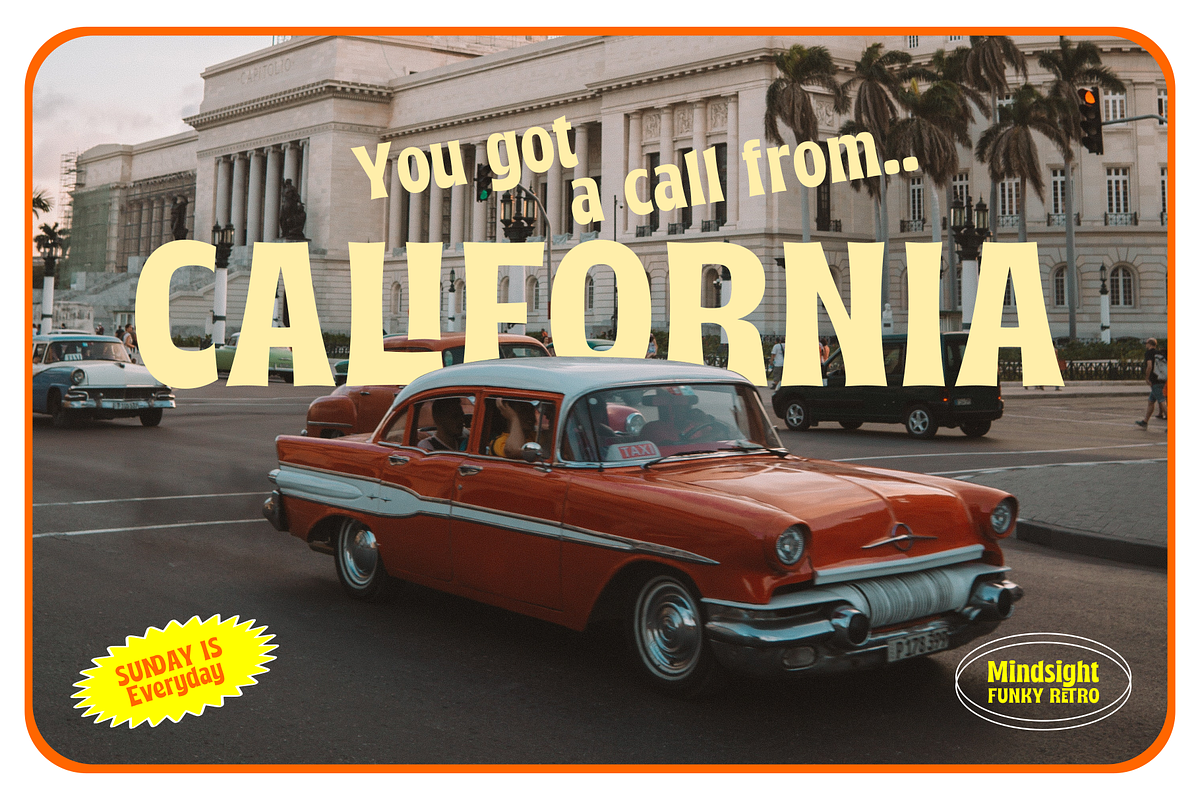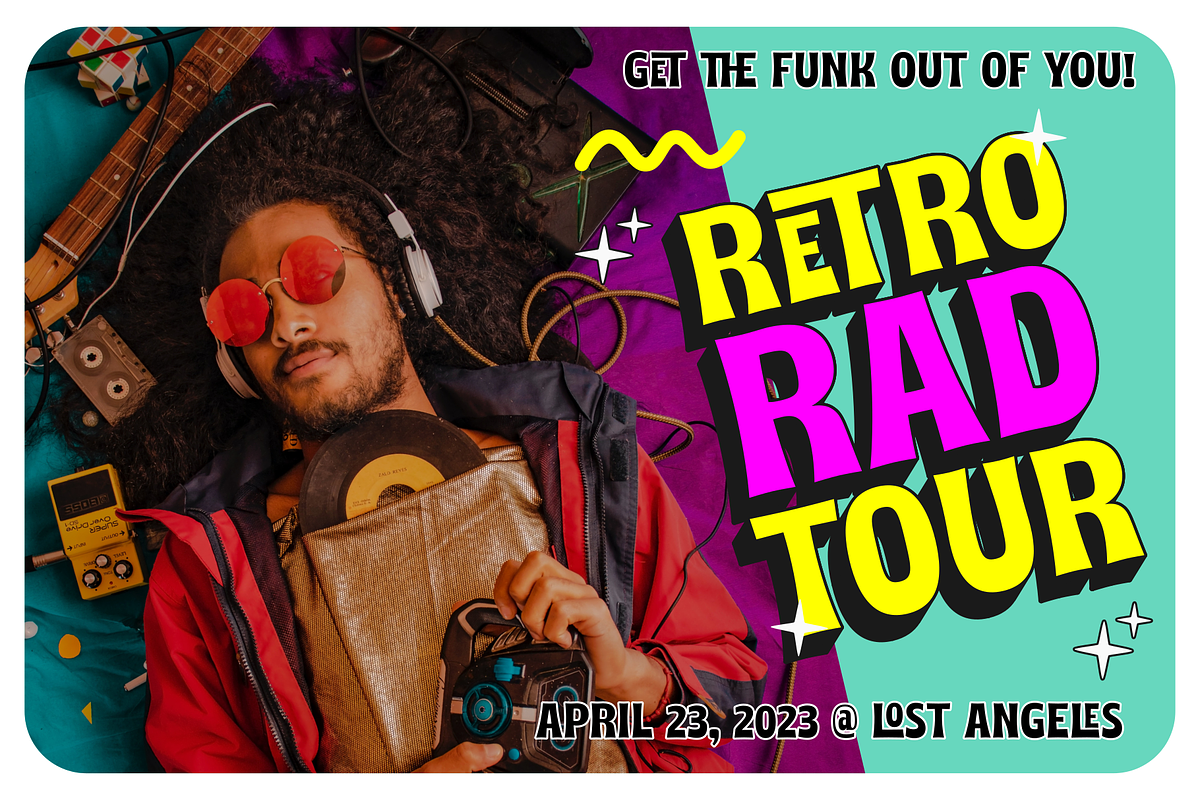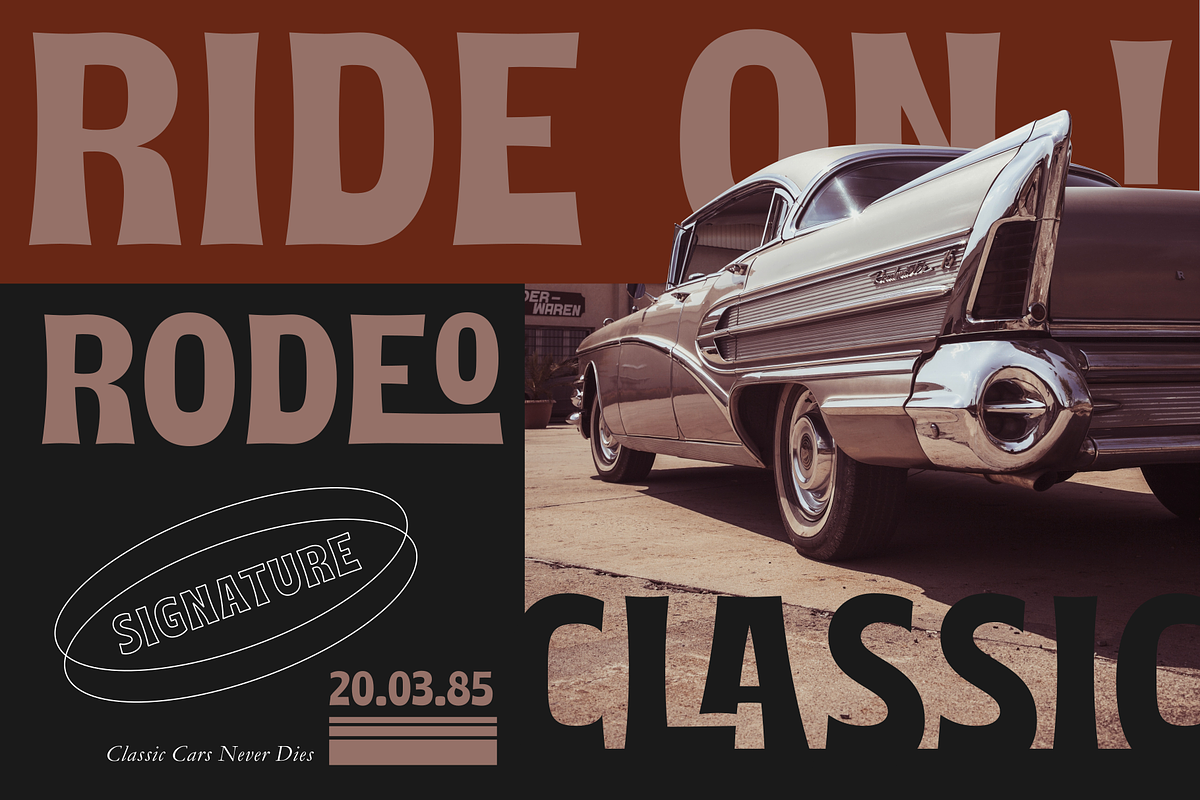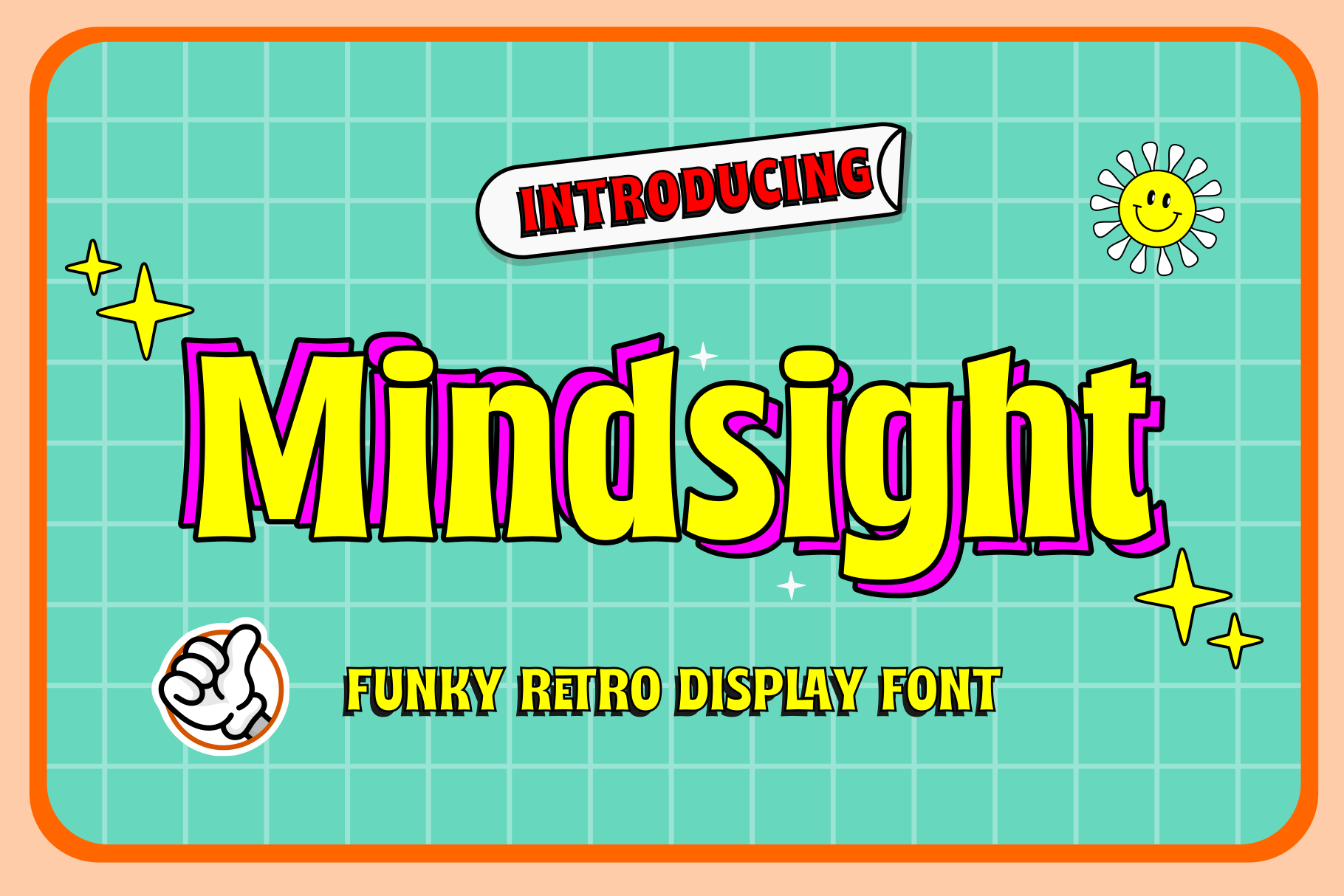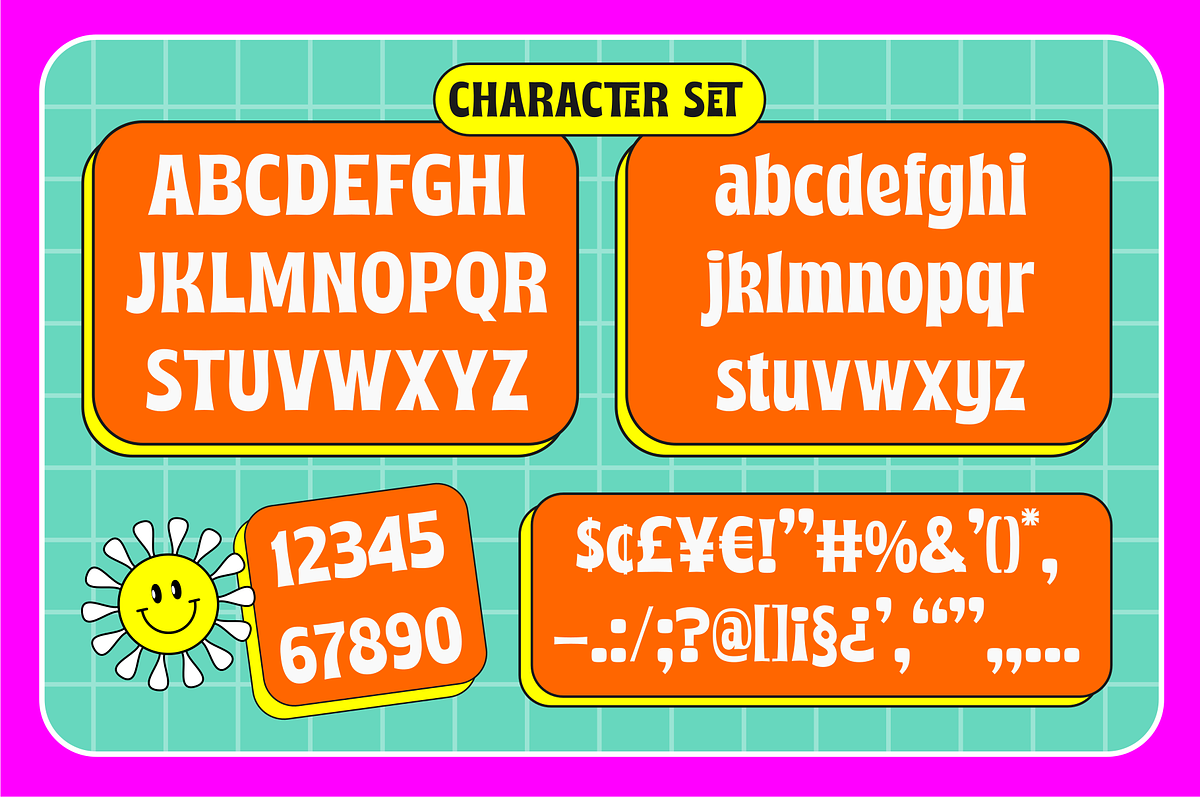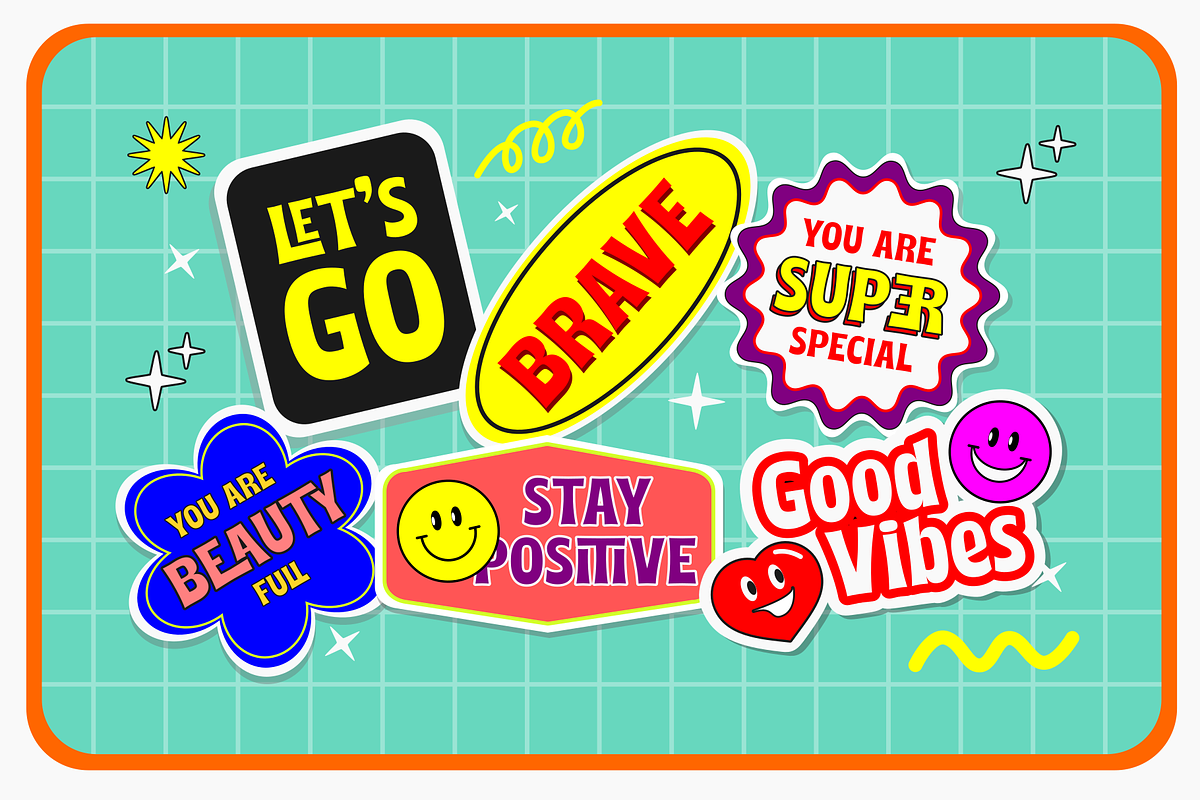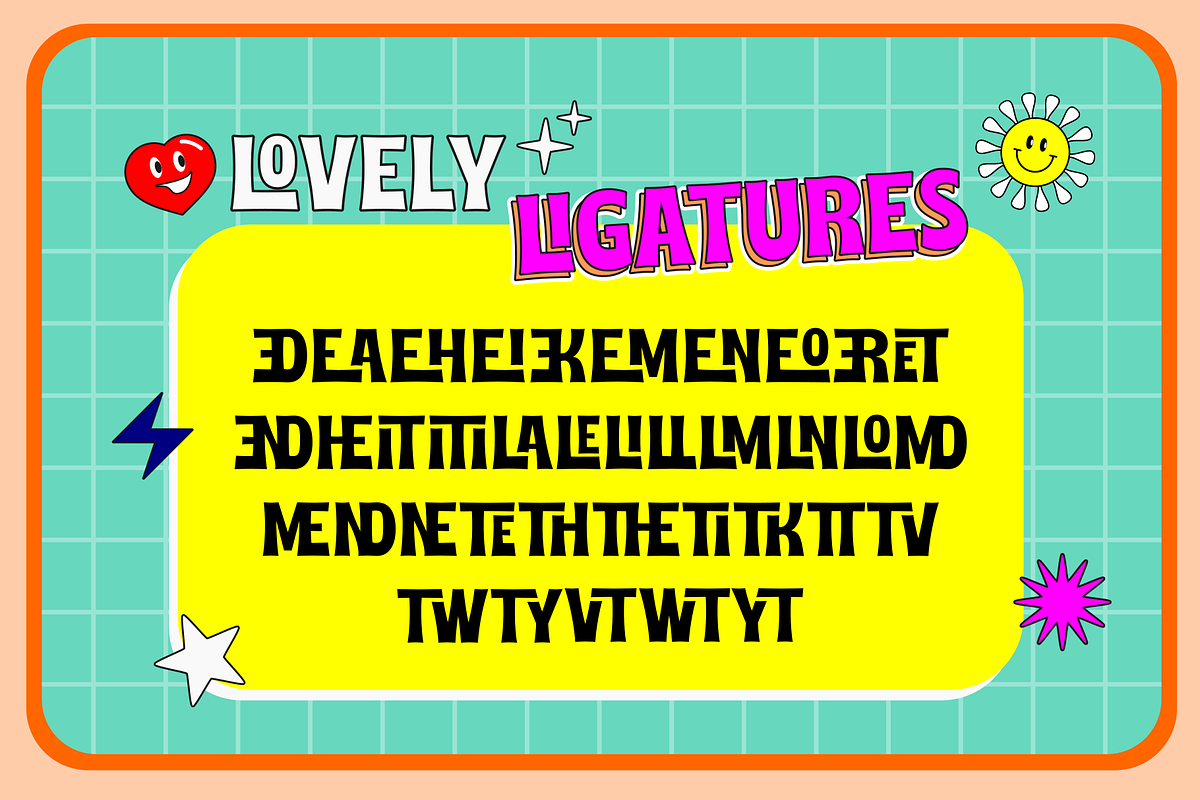
Mindsight Typeface
Mindsight Funky Retro Display Font is a vibrant and energetic typeface that captures the essence of vintage aesthetics. With its playful curves and bold strokes, it adds a touch of nostalgia and creativity to any design project, making it perfect for eye-catching headlines, posters, and artistic displays."